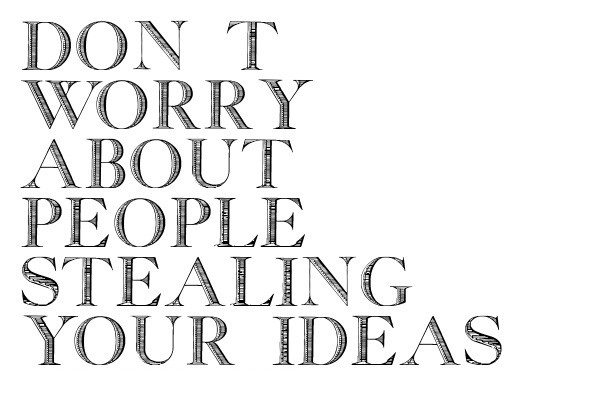
Georgia Capitals
Foundry: Intellecta Design
A classic font design remastered by the type foundry Intellecta Design. Distressed and antique, use this font in display purposes for a stylized type design. Uppercase letter designs only, works best when used for headers and set manually.